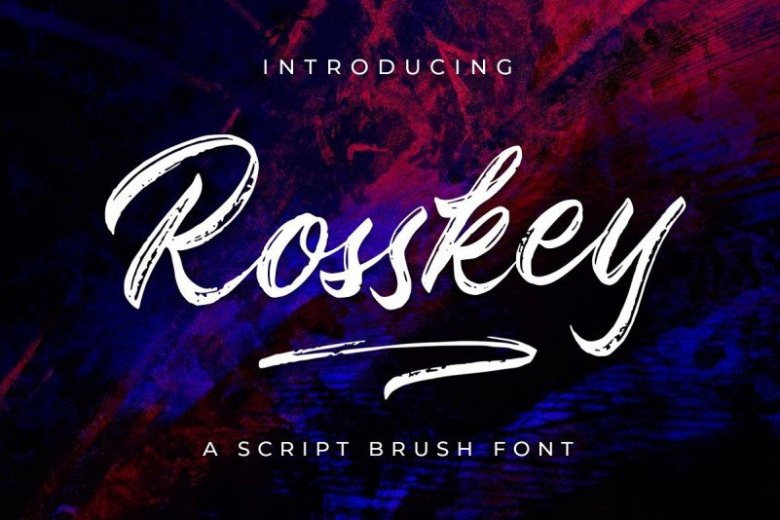
Rosskey Brush Font Free
Rosskey Brush Font is textured brush font, a contemporary approach to design, with a handmade natural and irregular baseline. Made from font designer named sancreastd.
It’s a realistic hand brushed font, with natural authentic brush, and also provided some alternate and Swashes. Brand new stylish textured fonts and Make it easy for made logotype Handlettering Style. It will be great for Logotypes, Posters, Digital Lettering Arts, Clean Design, Branding Design, Sign, Merchandise and Social Media Posts.